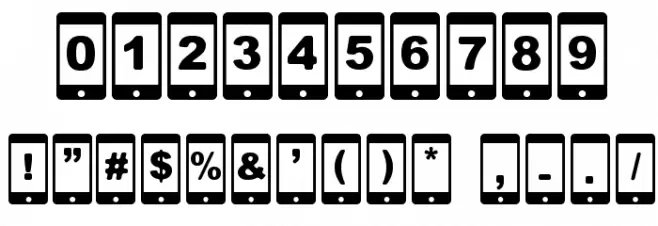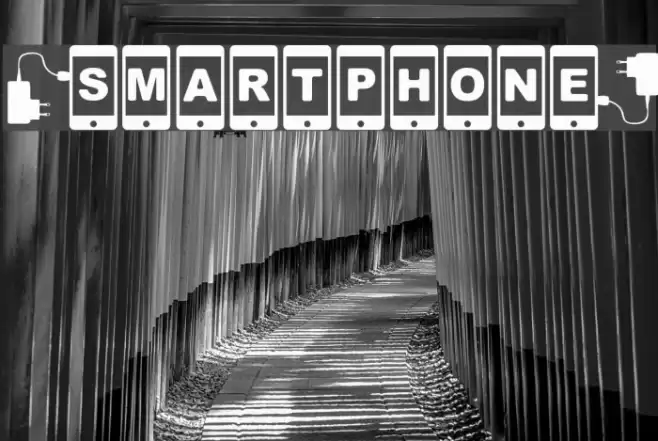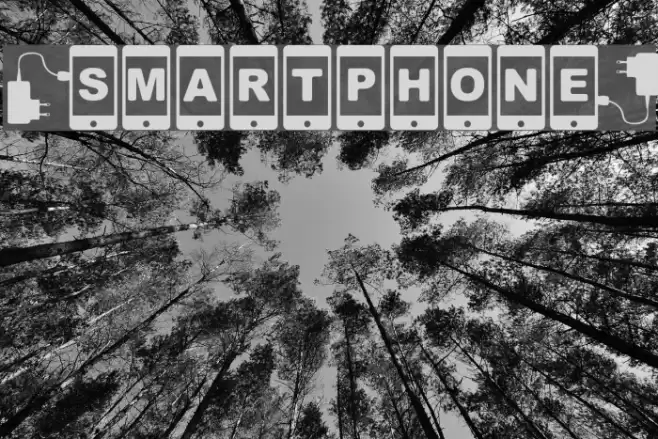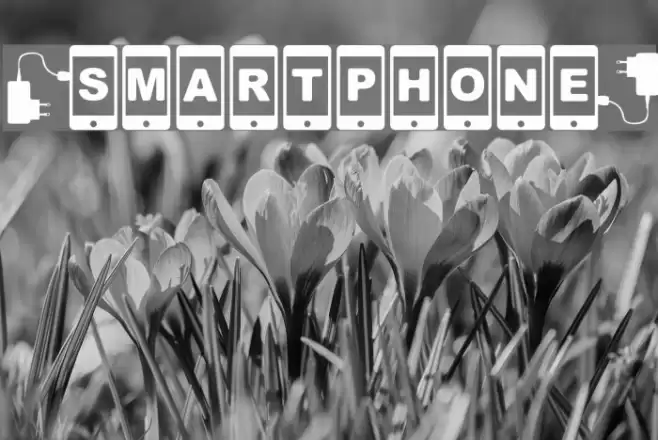
[smartphone] Font
This font features characters encapsulated within smartphone-like frames, creating a unique and modern aesthetic. Each letter and number is bold and clear, designed to stand out within its rectangular border. The style is playful yet structured, making it suitable for tech-themed projects or modern digital designs. The characters are evenly spaced within their frames, ensuring readability and a consistent visual flow. The use of smartphone imagery adds a contemporary touch, appealing to audiences familiar with digital interfaces.
A bold, tech-inspired font with characters inside smartphone frames.
- Proposed Projects: Ideal for tech-related branding, app design, digital marketing materials, and educational tools focusing on technology.
- Use Case: Logos, Headlines, Digital Media